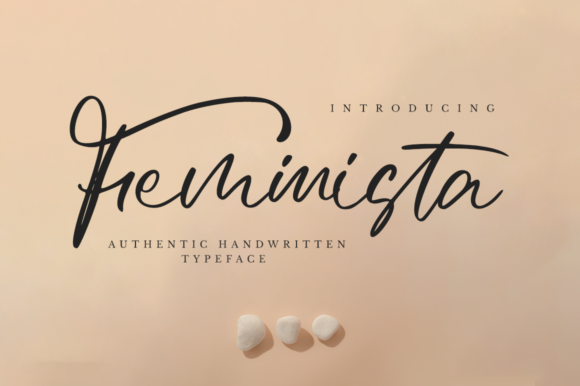
Feminista Font: Elevate Your Designs with Elegance and Sophistication
In the world of typography, a font can make or break a design. For those seeking a touch of elegance and modern sophistication, the Feminista Font is an exceptional choice. This beautiful and refined script font is perfect for designers and crafters looking to add a classy touch to their projects. Whether you’re creating logos, branding materials, invitations, stationery, wedding designs, social media posts, or more, Feminista Font is sure to impress.
What is Feminista Font?
Feminista Font is a stunning script font that exudes a sense of refinement and luxury. Its elegant and modern design makes it an ideal choice for a wide range of applications, from high-end branding to intimate wedding invitations. The font’s flowing lines and delicate curves create a sense of movement and fluidity, adding a touch of sophistication to any design.
Key Features of Feminista Font
- Classy and Elegant Design: Feminista Font boasts a refined and sophisticated design that’s perfect for creating high-end branding, logos, and marketing materials.
- Modern Look and Feel: The font’s modern aesthetic ensures it will complement a wide range of design styles, from minimalist to ornate.
- Versatile: Use Feminista Font for a variety of projects, including logos, branding, invitations, stationery, wedding designs, social media posts, and more.
- Easy to Read: Despite its elegant design, Feminista Font remains highly legible, making it perfect for both digital and print applications.
Who Can Benefit from Feminista Font?
Feminista Font is an excellent choice for a range of designers and crafters, including:
- Graphic Designers: Add a touch of elegance to your branding, logos, and marketing materials.
- Wedding Planners and Designers: Create beautiful wedding invitations, stationery, and decor with Feminista Font.
- Stationery and Journal Designers: Elevate your stationery and journal designs with a sophisticated and modern font.
- Social Media Managers: Use Feminista Font to create eye-catching social media posts and stories.
- Crafters and DIY Enthusiasts: Add a professional touch to your handmade crafts, such as cards, gift tags, and more.
Tips for Using Feminista Font
To get the most out of Feminista Font, consider the following tips:
- Pair with Neutral Colors: Combine Feminista Font with neutral colors like black, white, or pastel shades to create a clean and elegant look.
- Experiment with Font Sizes: Play with different font sizes to create visual hierarchy and add emphasis to specific design elements.
- Use for Headings and Titles: Feminista Font is perfect for headings and titles, adding a touch of sophistication to your designs.
Feminista Font is a stunning script font that offers a unique blend of elegance, sophistication, and modernity. With its versatile design and wide range of applications, it’s an excellent choice for designers and crafters looking to elevate their projects. Whether you’re creating branding materials, wedding invitations, or social media posts, Feminista Font is sure to make a lasting impression.